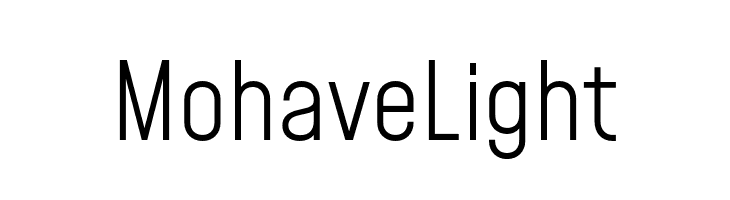
• Mohave Light Italic 字体
( Fonts by Tokotype )
A sleek, modern, light italic font with low contrast and condensed spacing.
• Mohave Medium 字体
A modern sans-serif font with a clean, geometric design.
• Mohave Medium 字体
( Fonts by Tokotype )
A bold, modern sans-serif font with clean lines and strong presence.
• Mohave Medium Italic 字体
A modern, italic font with clean lines and a professional appearance.
• Mohave Medium Italic 字体
( Fonts by Tokotype )
A modern, italicized font with bold, clean lines and excellent readability.
• Mohave Regular 字体
A modern, geometric sans-serif font with a clean and sleek appearance.
• Mohave Regular 字体
( Fonts by Tokotype )
A modern, geometric sans-serif font with a clean and sleek appearance.